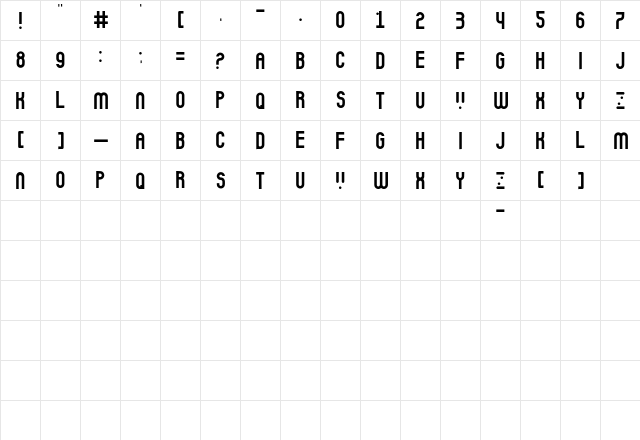
Nando Regular Font Preview
Nando Regular
Nando Regular Font Details
| Designer | Rendi oktavio |
Design Context for Nando Typeface
Nando offers clean, dependable letterforms without strong stylistic allegiance, making it a practical choice for designers who need flexibility.
Pro Tip: Pair Nando with a font of contrasting weight or personality to build a more expressive typographic hierarchy.